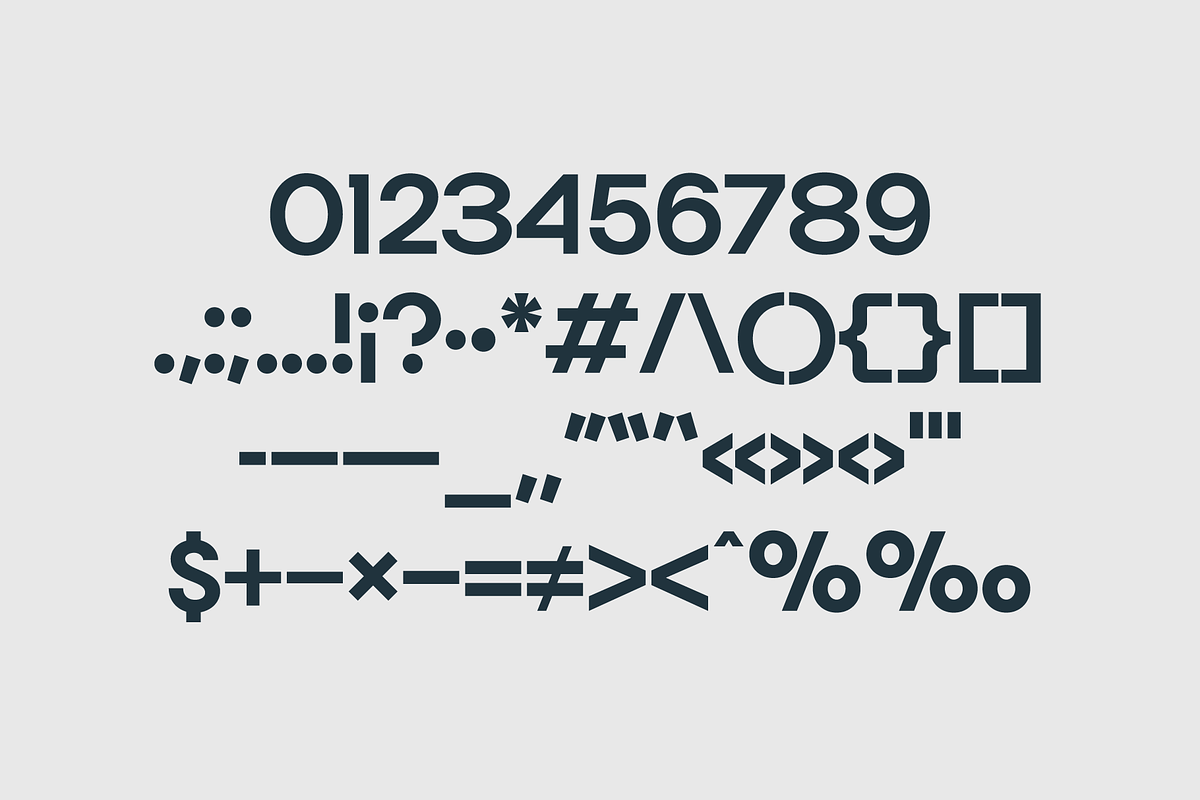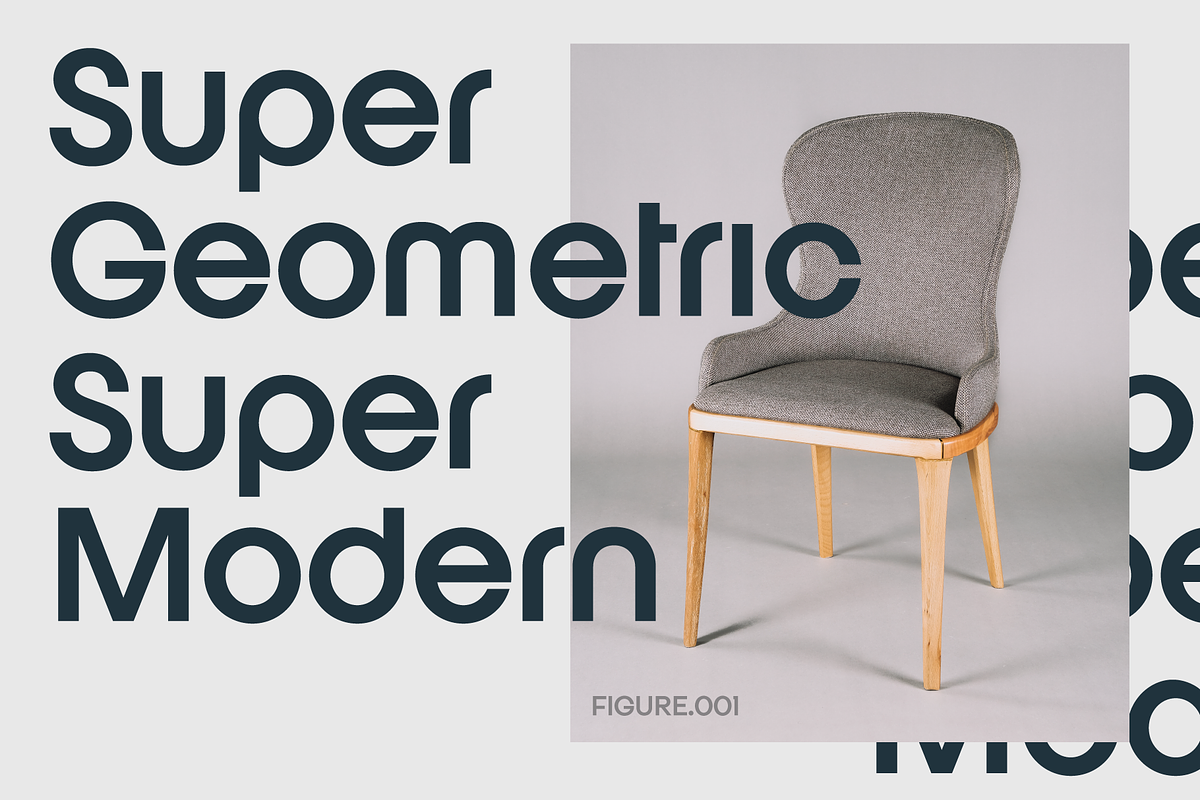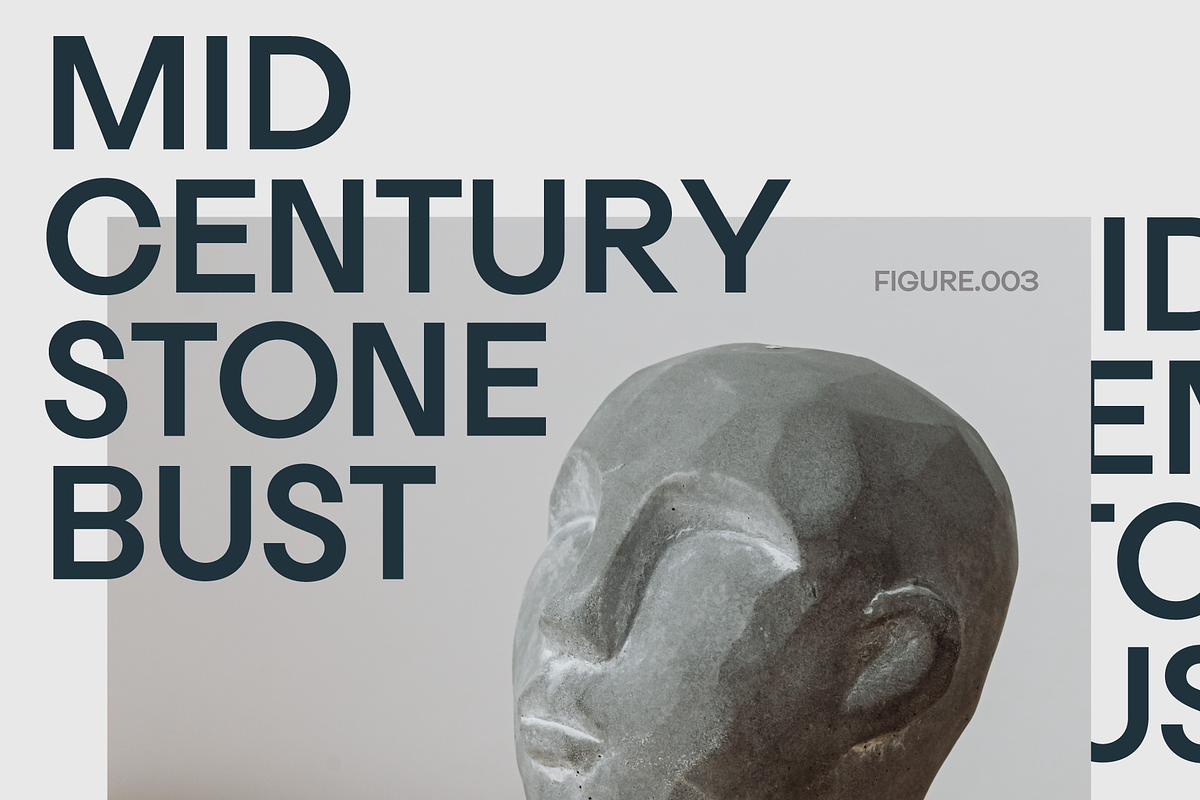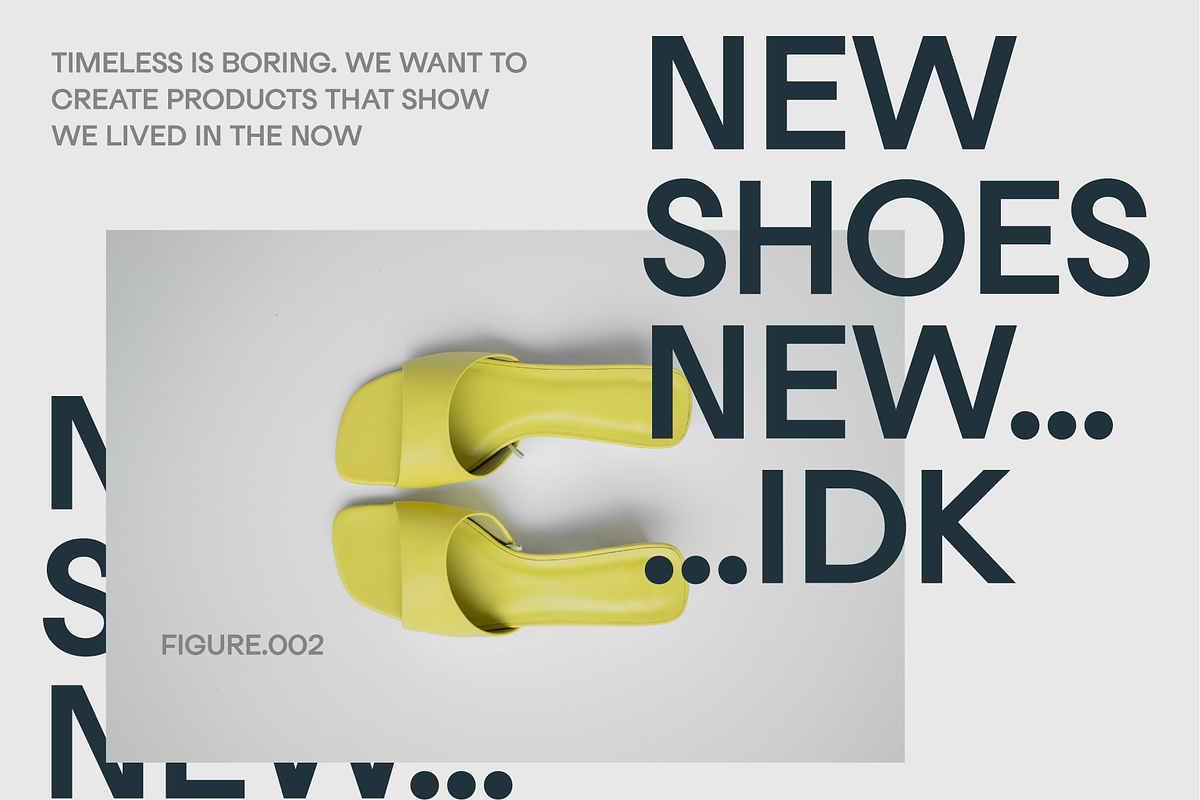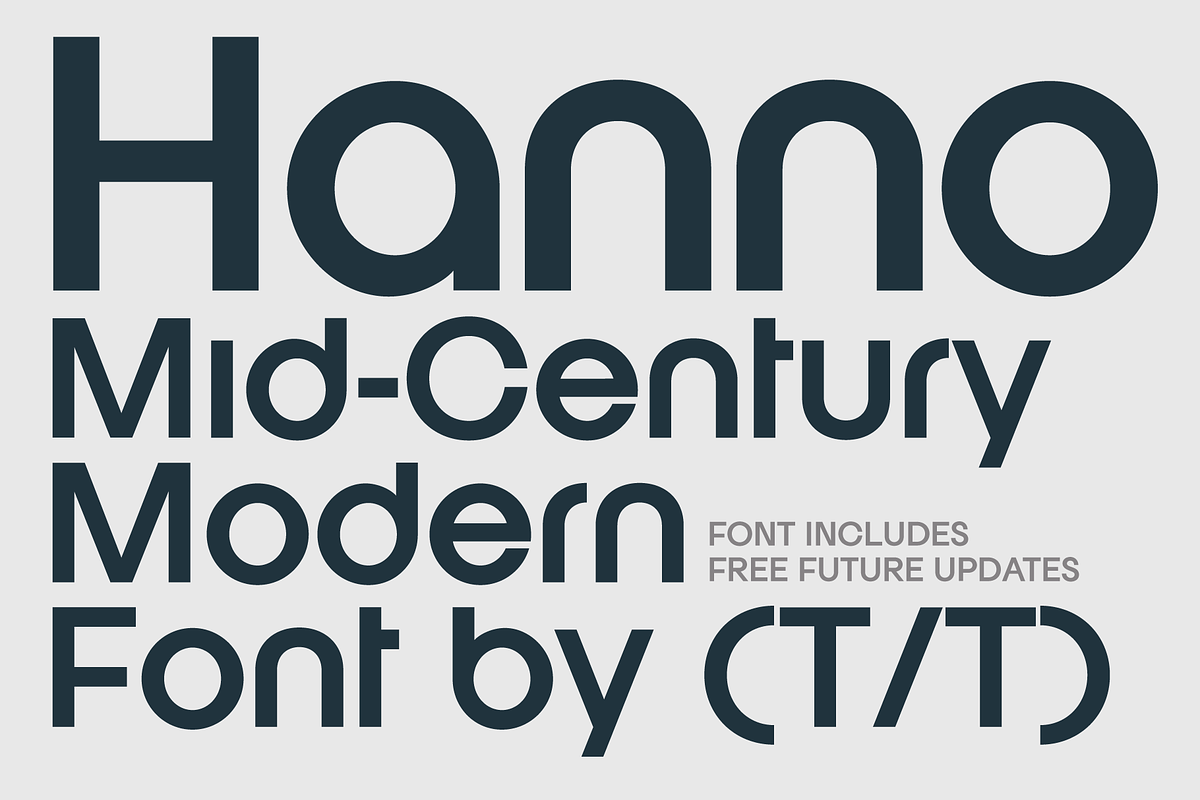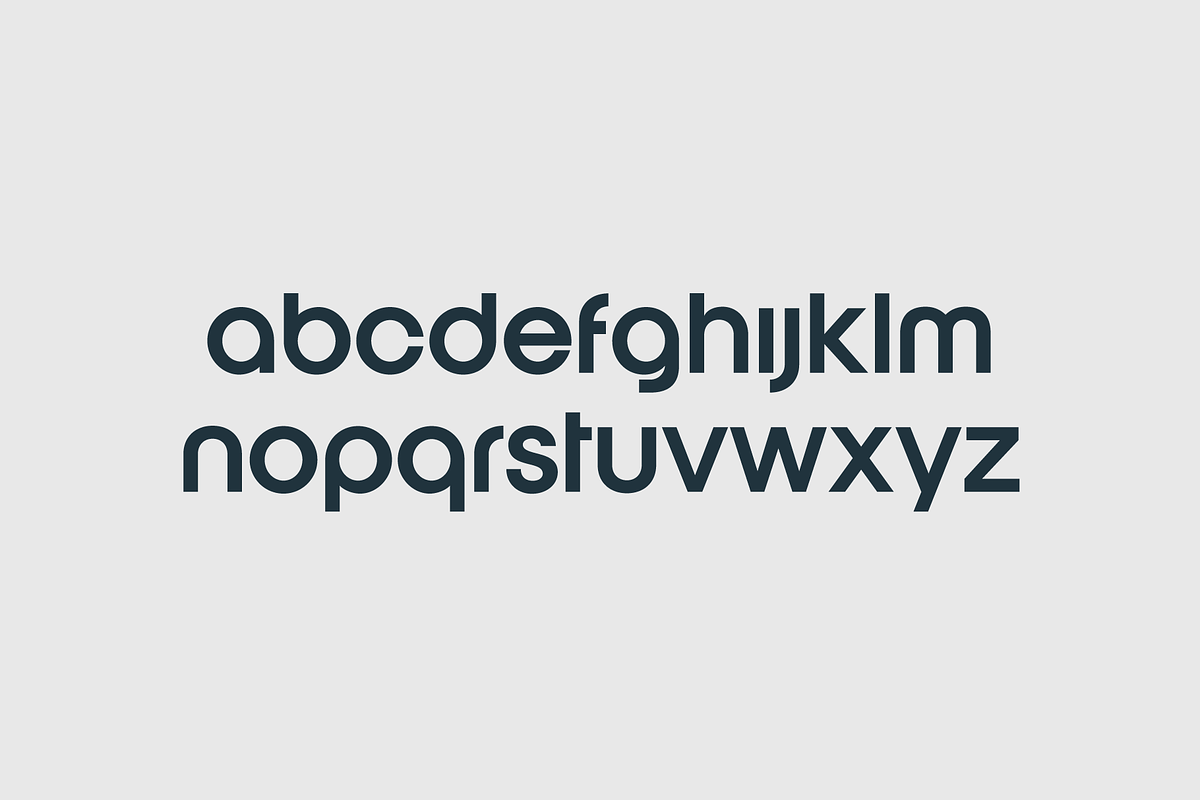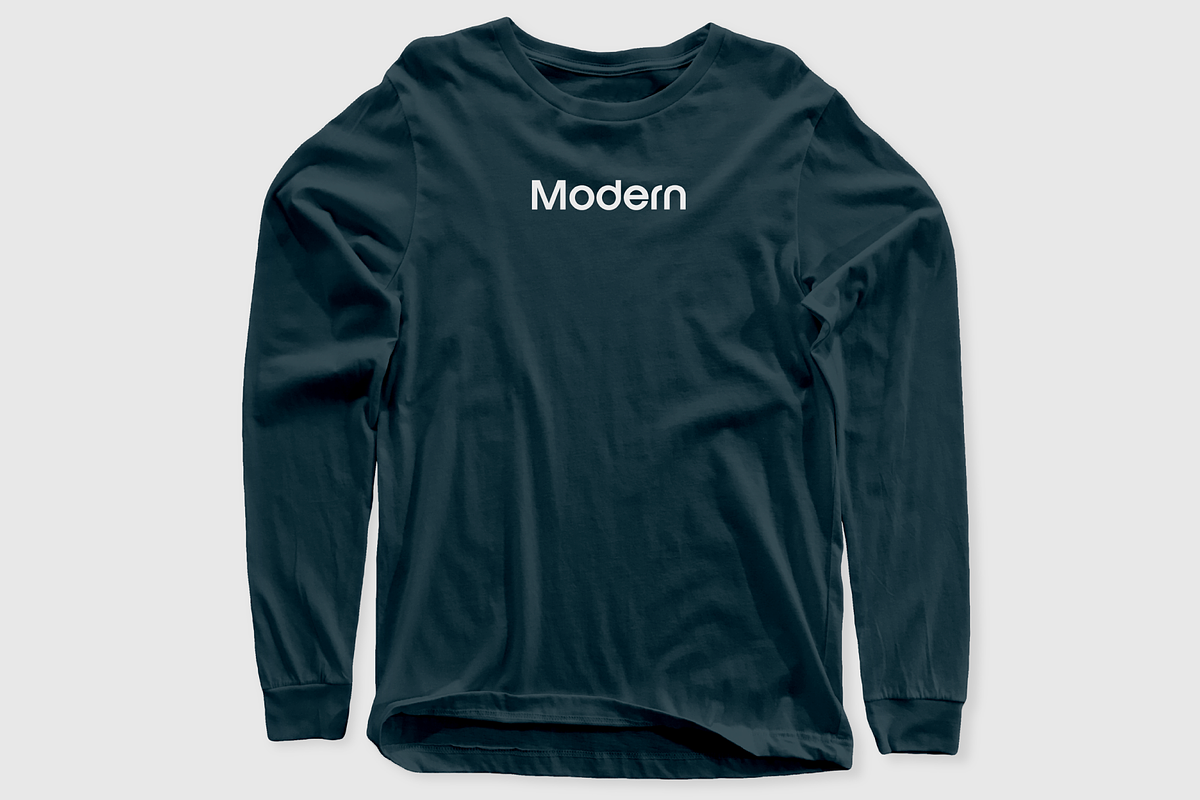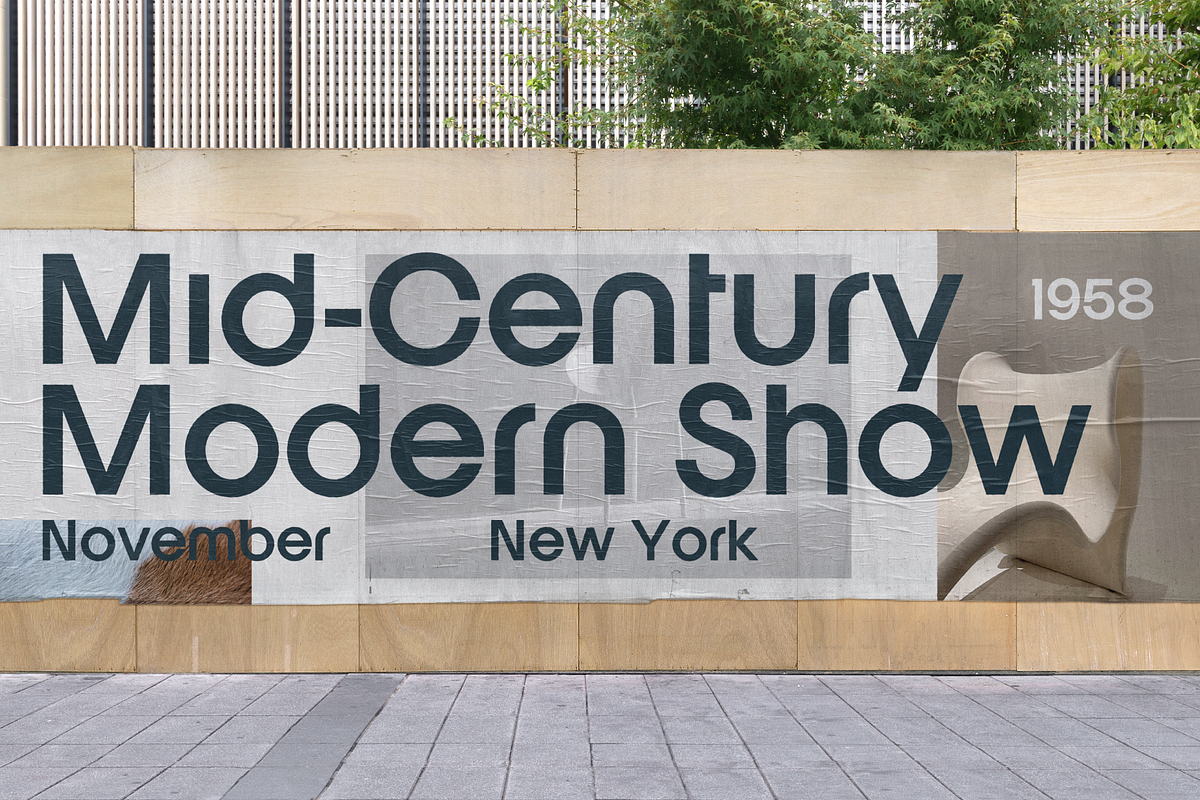
Hanno Mid Century Modern Sans Serif
Hanno is a geometric Mid Century Modern sans serif font that works well for big bold headlines on posters, as well as small body copy. It has a super tall X-height and is super minimalistic. This font is one of the most versatile fonts in the That That library and is sure to be a go-to whenever you need a sans serif with personality. Use it for branding, products, Instagram, websites, magazines, and anything else you can think of.